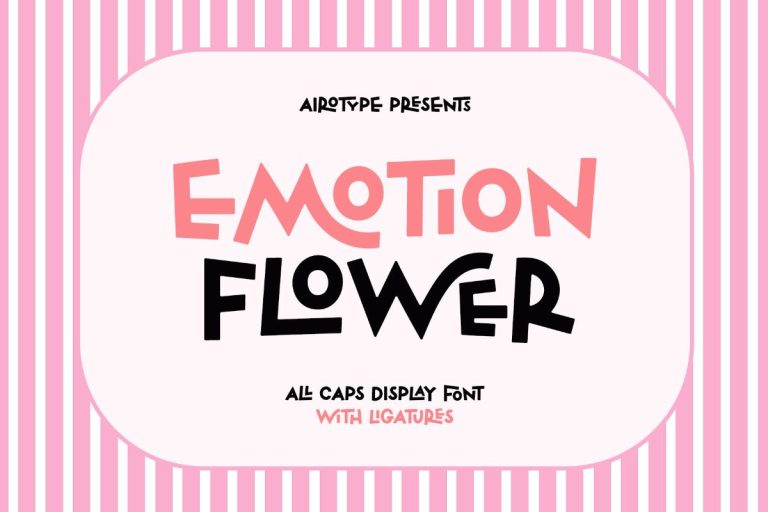
Emotion Flower
Emotion Flower is all caps display font with bouncy and cute vibes.
Emotion Flower has tons of ligatures with cute style. Make sure your design software has ligature features.
This font is pretty playful for wide ranges of design with cute theme, such as t-shirt, display, crafting, sticker, quotes, tumbler, sublimation, and many more.
Features:
- All Caps with ligatures
- Numeral and Punctuation
- Most Multilingual Accent